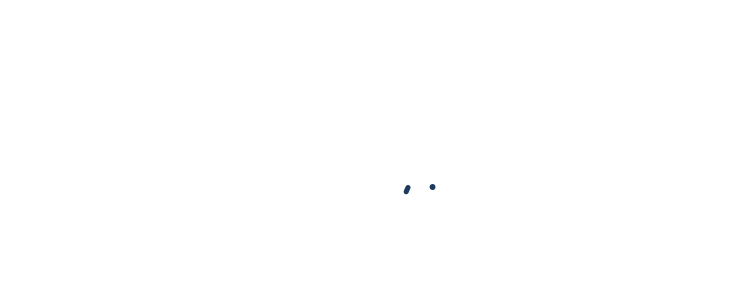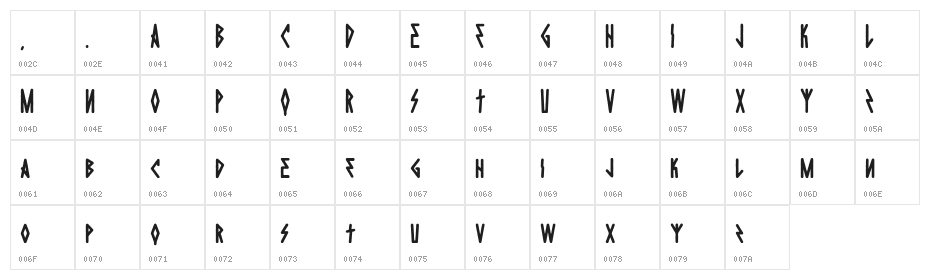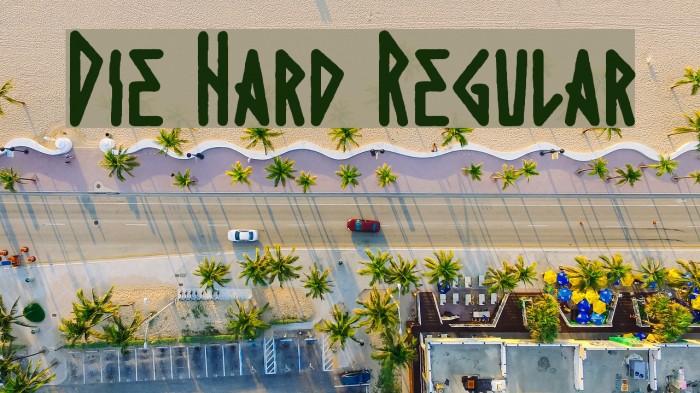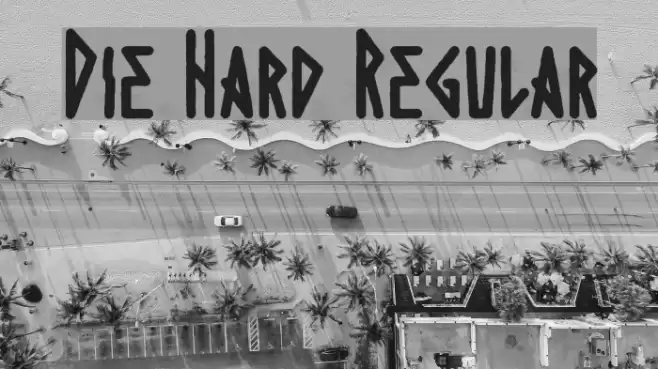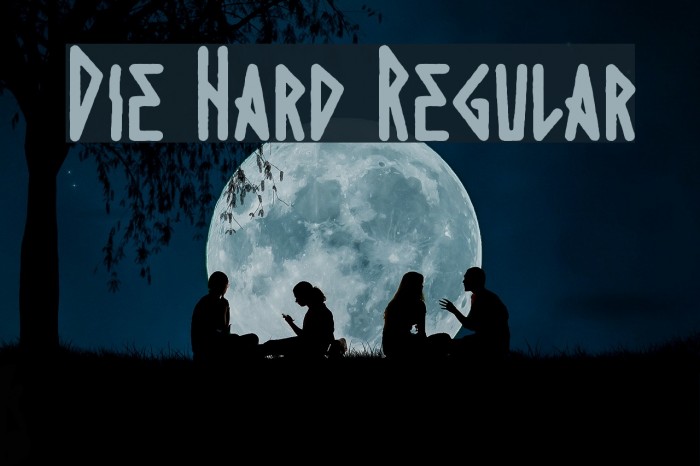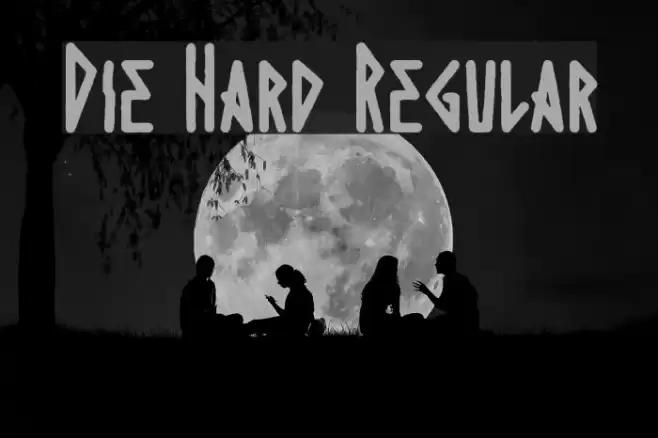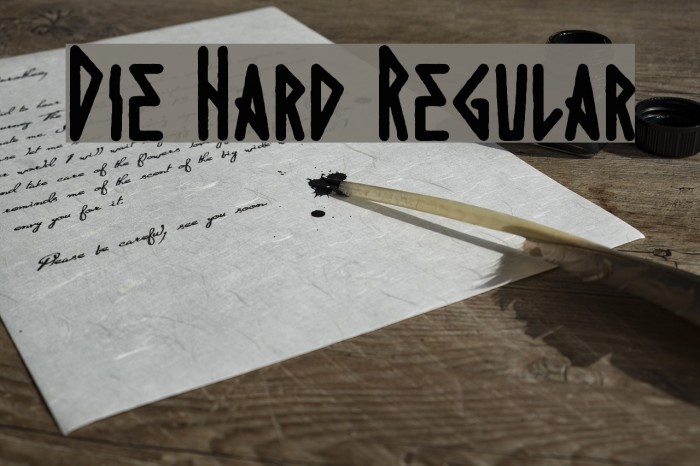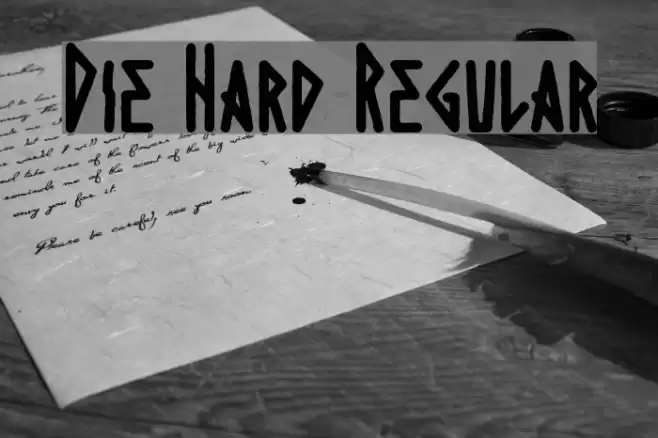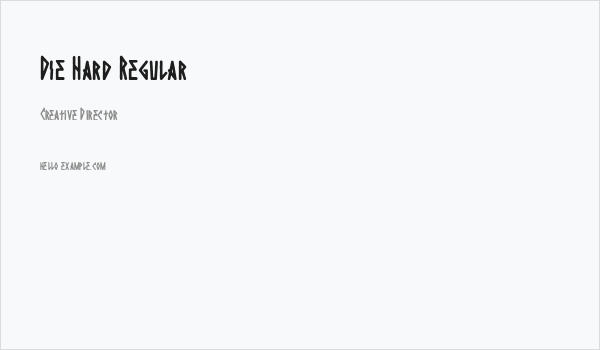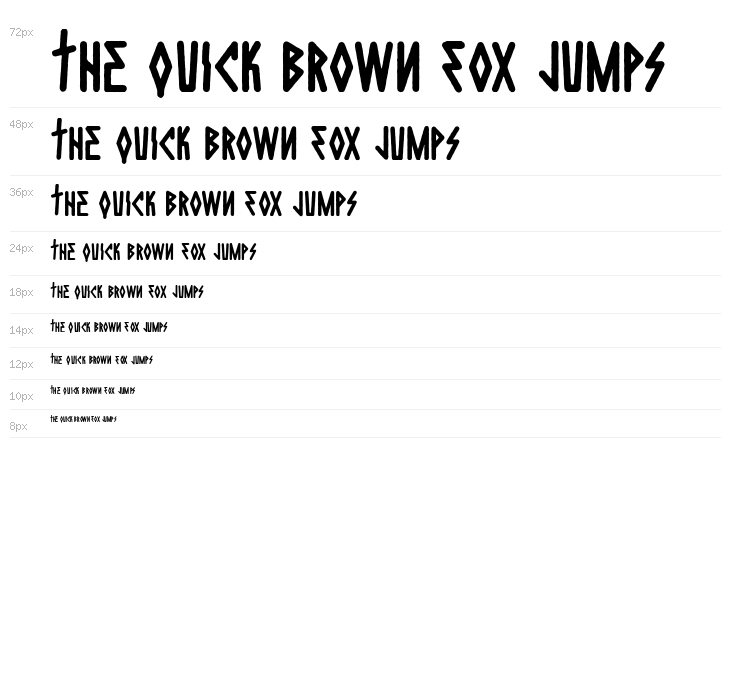
Die Hard Regular Font
Die Hard Regular Description
This font features a bold and striking design with angular, geometric shapes that give it a distinctive and edgy appearance. The characters are crafted with sharp lines and pointed edges, creating a sense of movement and energy. The uppercase letters exhibit a consistent height and width, while the lowercase letters maintain a similar style, ensuring uniformity across the text. The numbers and special characters are designed to match the overall aesthetic, making this font suitable for attention-grabbing headlines and titles. Its unique style is reminiscent of a futuristic or sci-fi theme, making it ideal for projects that require a modern and unconventional look.
| Proposed Projects | Ideal for sci-fi movie posters, video game titles, and modern branding projects. |